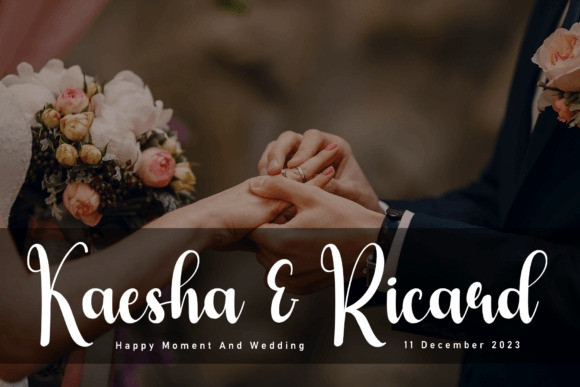
Spooky Vacations Font
Spooky Vacations Font is a clean, relaxed and friendly handwritten font. Suitable to a wide variety of designs due to its neat and simple style, this font has the potential to become your favorite go-to font, no matter the occasion!